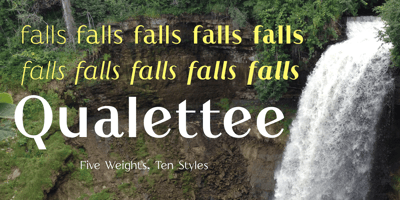
Qualettee
Qualettee font
Qualettee Font Family was designed by Robert Schenk and published by Ingrimayne Type. Qualettee contains 10 styles and family package options. Qualettee is a decorative sans face with a high x-height that works surprisingly well for text. The lightest weight is almost moonline but as the styles get bolder, the contrast increases, becoming very pronounced. The family has ten members: five weights with italics for each weight.